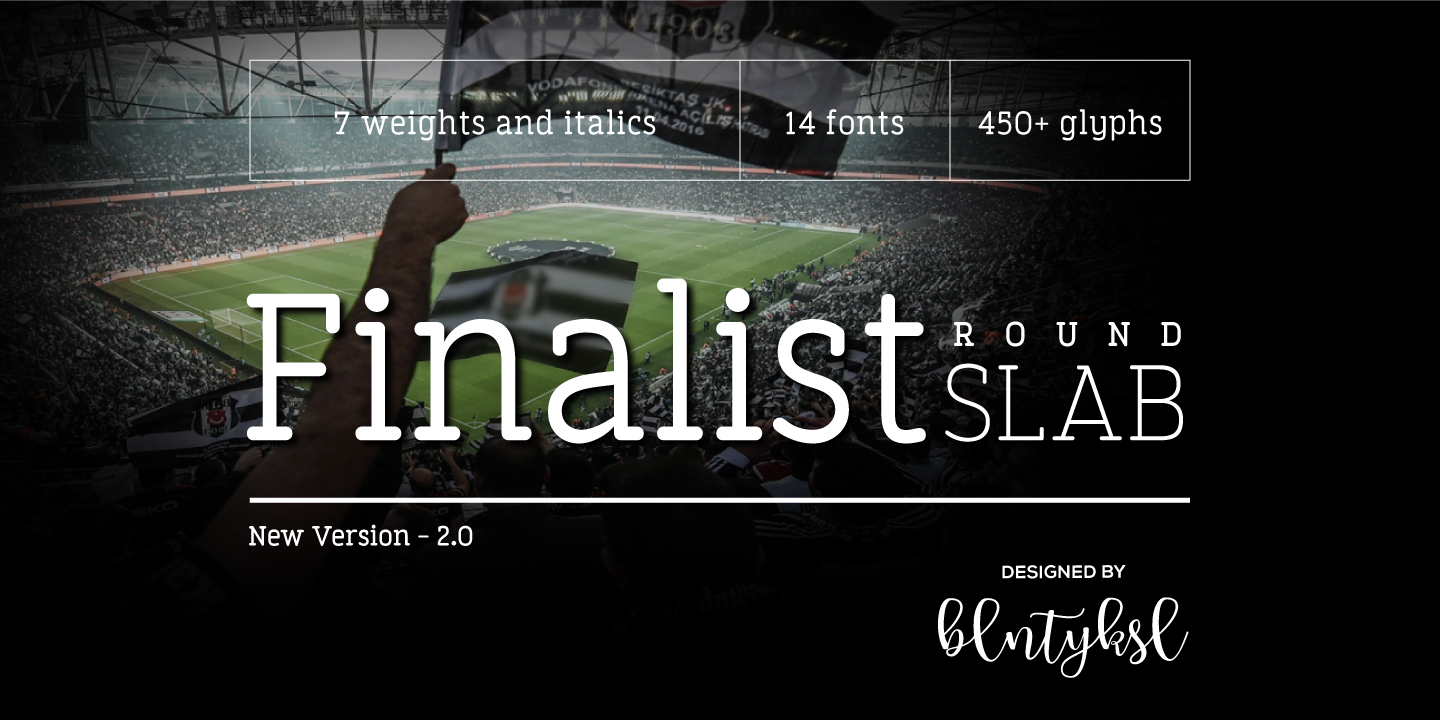
This championship typeface is perfect for sports tournaments, competition branding, award ceremonies, championship events, athletic scholarships, contest promotions, victory campaigns, achievement recognition programs, competitive gaming, sports broadcasting, winner announcements, trophy presentations, and success-driven marketing materials. The font's winning design makes it ideal for projects that celebrate excellence, competitive spirit, and the ultimate achievement of reaching the final round in any competition.
Finalist Round Slab Font is exciting because it embodies competitive excellence and championship determination through its bold slab letterforms and victory-inspired character structure. The font's strong serifs and confident proportions create an atmosphere of achievement, perseverance, and ultimate success, making it perfect for brands that want to convey winning mentality, competitive edge, and the drive to reach the pinnacle of performance. Its championship personality ensures instant authority while maintaining excellent readability across various competitive applications.
The Finalist Round Slab Font family includes multiple competitive variations: Light Qualifier, Regular Semifinal, Medium Championship, Bold Victory, and Black Champion weights, each available in standard and condensed versions. Special tournament editions feature award alternates, trophy symbols, and victory ornaments that enhance the font's competitive appeal, providing designers with comprehensive tools for creating authentic championship communications.
Claim victory in design with Finalist Round Slab Font Free Download – a typeface that represents the pinnacle of competitive achievement and championship excellence. Whether you're developing sports branding, competition materials, or success-focused marketing campaigns, this font delivers the winning presence and championship authority your projects need while ensuring exceptional performance and victorious impact across all competitive and achievement applications.